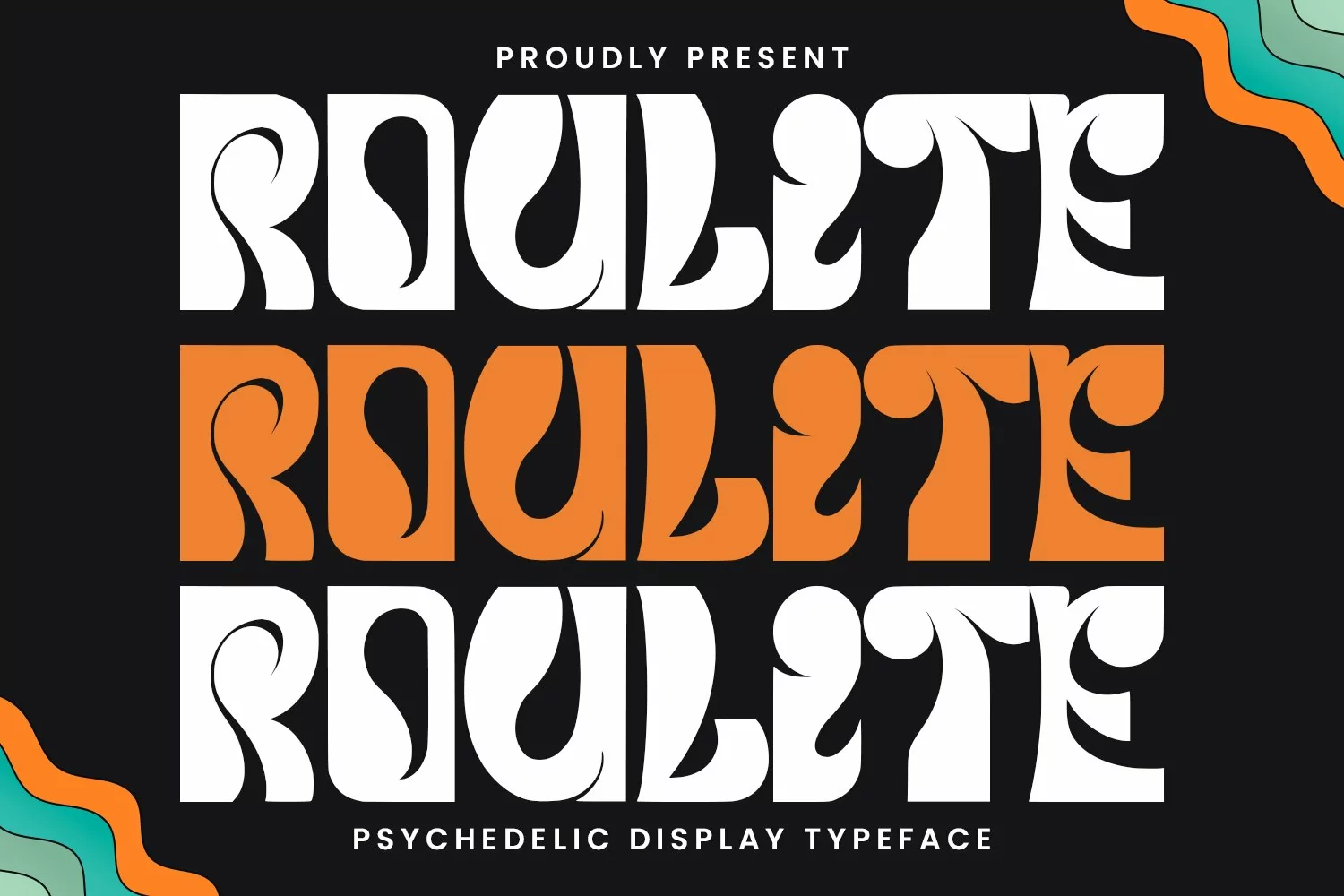
Roulite Psychedelic Display Typeface Font, fun character with a bit of ligatures and alternates. To give you an extra creative work. Roulite font support multilingual more than 100+ language. This font is good for logo design, Social media, Movie Titles, Books Titles, a short text even a long text letter and good for your secondary text font with script or serif. Make a stunning work with Roulite font.